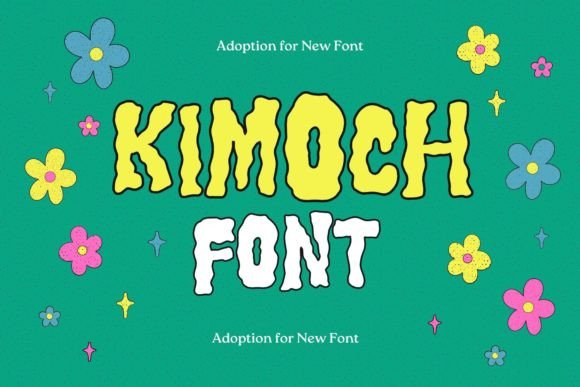
Looking for the perfect font to bring your designs to life? Look no further than Kimoch Font! This stunning hand-painted typeface is designed to help you create the look of custom hand-lettering, adding a touch of personality and style to your projects.
Created by Maghrib, Kimoch is a display font that truly stands out. With its bold lines and eye-catching curves, it's the perfect choice for quotes, posters, logos, and more. Whether you're creating print ads or digital promotions, Kimoch is sure to make an impression.
One of the standout features of Kimoch is its versatility. This font is perfect for a wide range of applications, making it a must-have for any designer or marketer. Use it for promotional products, video bumpers, or any other project where you want to elevate your message and capture your audience's attention.
But Kimoch isn't just about style - it's also incredibly easy to use. With its intuitive design and user-friendly interface, you can quickly and easily incorporate this font into your projects. Plus, with its keyword "Best Font For A Casual Letter", it's the perfect choice for creating a warm and friendly message that resonates with your audience.
So why wait? If you're looking for a font that will help you stand out from the crowd, Kimoch is the perfect choice. With its unique design, versatility, and ease of use, it's the ultimate tool for creating stunning designs that capture your audience's attention and leave a lasting impression.